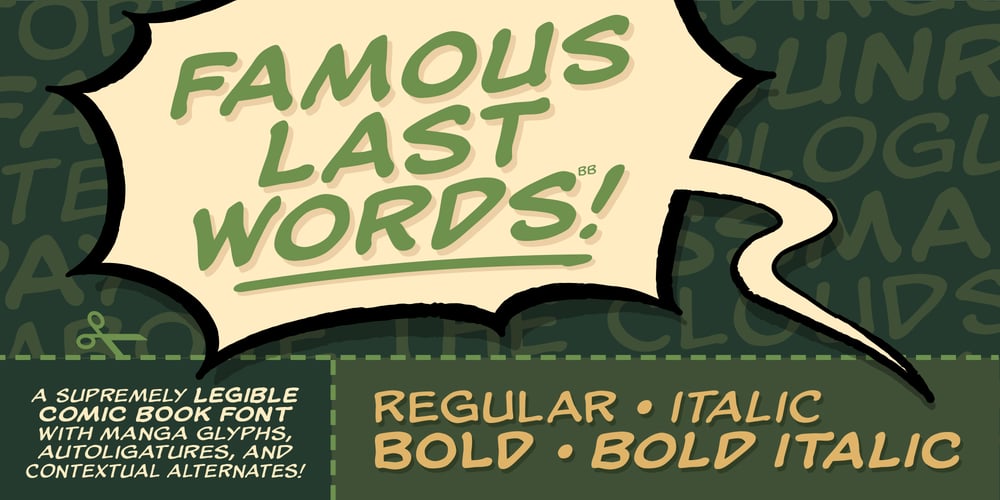
Famous Last Words BB Font Family was designed by Nate Piekos and published by Blambot. Famous Last Words BB contains 4 styles and family package options. Famous Last Words BB is a slightly extended comic book dialogue font drawn with a wedge-tipped calligraphy nib. Super legible at even small sizes, Famous Last Words BB includes a hefty complement of accented European glyphs, opentype auto-ligatures and contextual alternates that swap out adjacent identical letters for a more organic look. As is tradition in American comics, the barred-I for personal pronouns will automatically swap in as you type. The set comes with Regular, Bold, Italic, and Bold Italic.